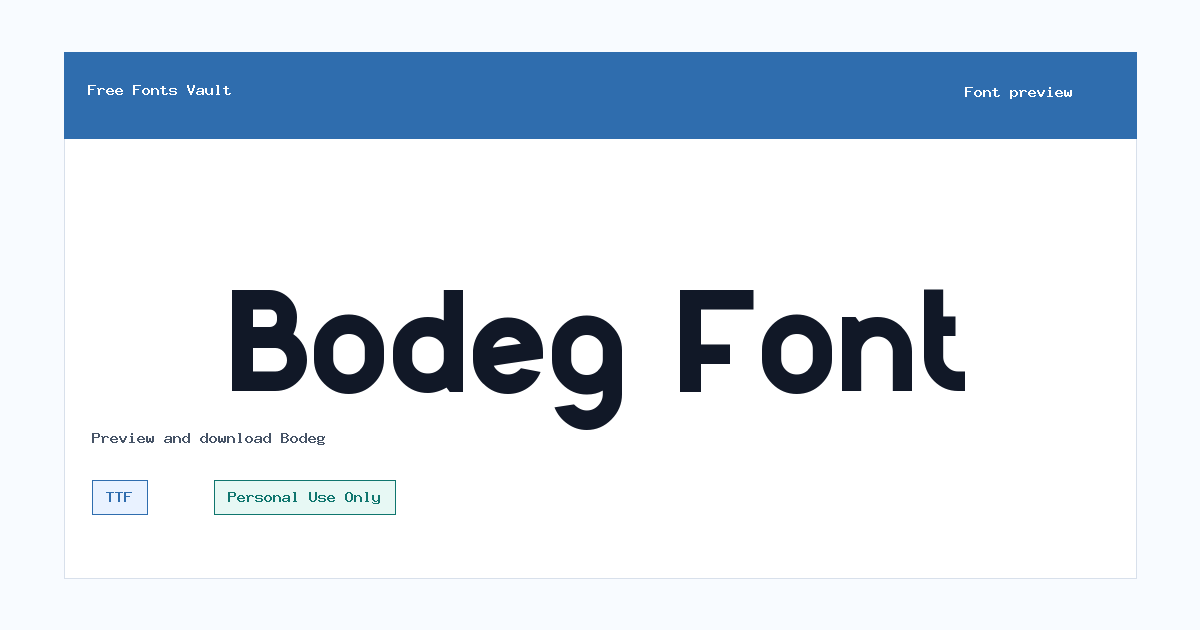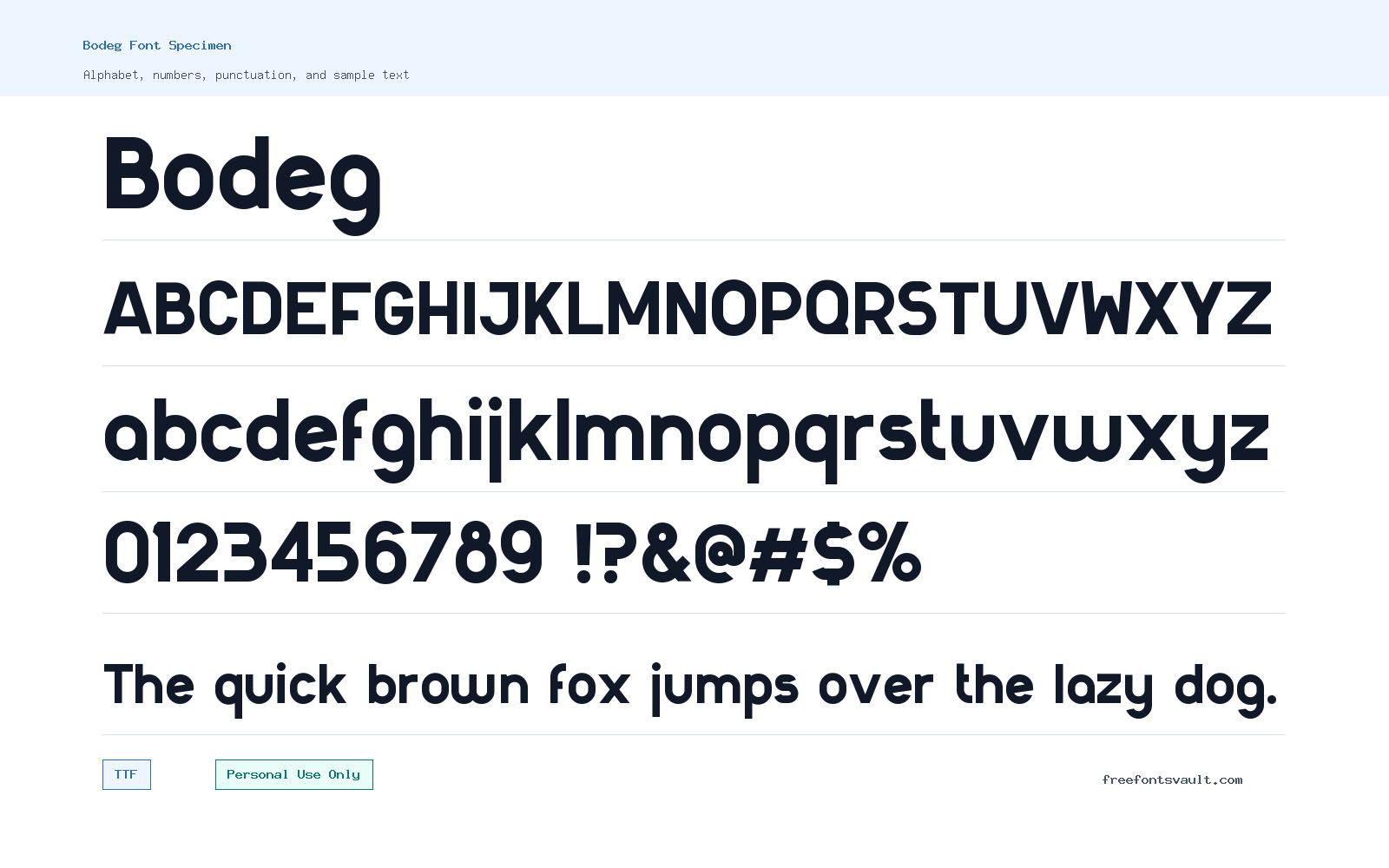
Bodeg
Bodeg font.
Bodeg is a sans serif font with a clean structure and a noticeable mix of sharp and curved details. It is best treated as a display-friendly typeface for short text, previews, and personal design experiments.
About Bodeg
Bodeg has the practical base of a sans serif, but its edges give it more character than a plain utility font. The source description points to a modern look with both sharp and curved forms, so it can feel crisp without becoming too rigid. That makes it a useful choice when you want a headline, title, label, or poster line to look cleaner than a decorative font but less neutral than a standard interface face. The family files include regular, italic, bold, and bold italic TTF styles, giving you enough range to test hierarchy instead of relying on one weight only.
Use the preview box to check Bodeg with the exact words you plan to use. Short names, menu headings, packaging-style labels, event titles, social graphics, and logo drafts are good places to start testing. For longer paragraphs, preview several lines before committing, because fonts with sharper details can become tiring when used at small sizes or in dense text. Pair it with a quiet serif or a simple humanist sans for body copy, and let Bodeg handle the stronger title role. Keep letter spacing modest at first; if the text feels tight in all caps, add spacing slowly rather than over-stretching the shapes.
- Sans serif design with a mix of sharp and curved forms for short, clean display text.
- Headlines, posters, cover titles, web banners, social media graphics, and short branding mockups.
- Personal projects where a clean sans serif needs a little more edge than a neutral system font.
What kind of font is Bodeg?
Bodeg is described as a sans serif font with clean shapes and a mix of sharp and curved edges. It is most useful for short display text rather than long reading passages.